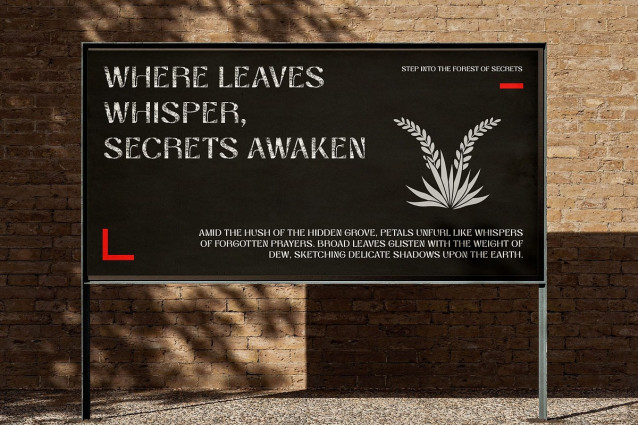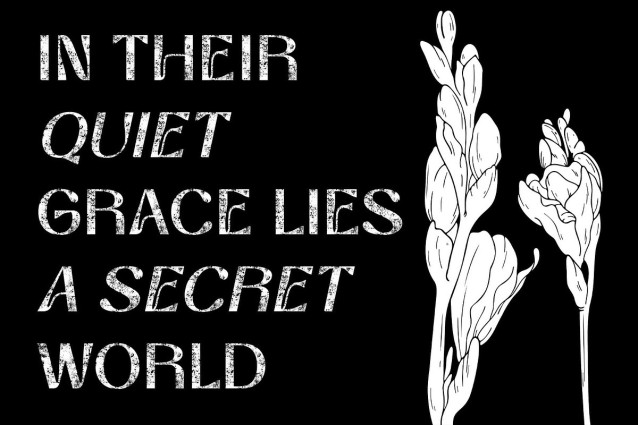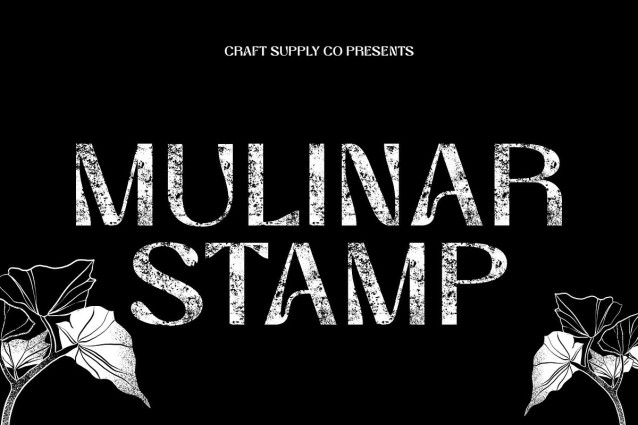
Mulinar Stamp Font
Mulinar Stamp Font – This is a modern sans serif font that draws from the flowing elegance of Art Nouveau design. Its clean, contemporary lines merge beautifully with ornamental influences, creating a font that feels both historic and forward-looking. This balance gives it a refined character that instantly elevates any design.
Stamp Texture for Authentic Vintage Appeal The defining feature of Mulinar Stamp is its stamp texture, which adds depth, tactility, and warmth. This textured effect creates a handcrafted, authentic appearance that evokes the feel of retro prints, vintage manuscripts, and classic editorial layouts. The slight imperfections give it personality, making it ideal for designs that want to feel timeless and human.
Trendy Yet Elegant for Versatile Designs Despite its vintage leanings, remains trendy and elegant. Its balance of bold structure with graceful details allows it to adapt to modern uses while retaining a sense of sophistication. Whether for luxury branding, artistic posters, or refined packaging, it communicates both creativity and professionalism.
Perfect for Editorials, Branding, and Retro Projects Shines in editorial spreads, retro-inspired branding, and historical designs. Its vintage literary feel pairs beautifully with modern layouts, offering a unique blend of nostalgia and innovation. Ideal for projects that aim to bridge eras, it brings a magical historical touch that makes every word look captivating.